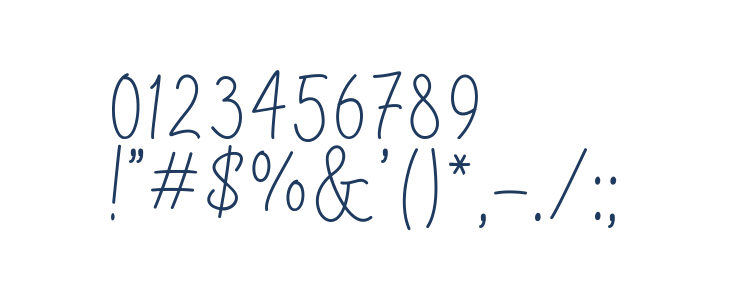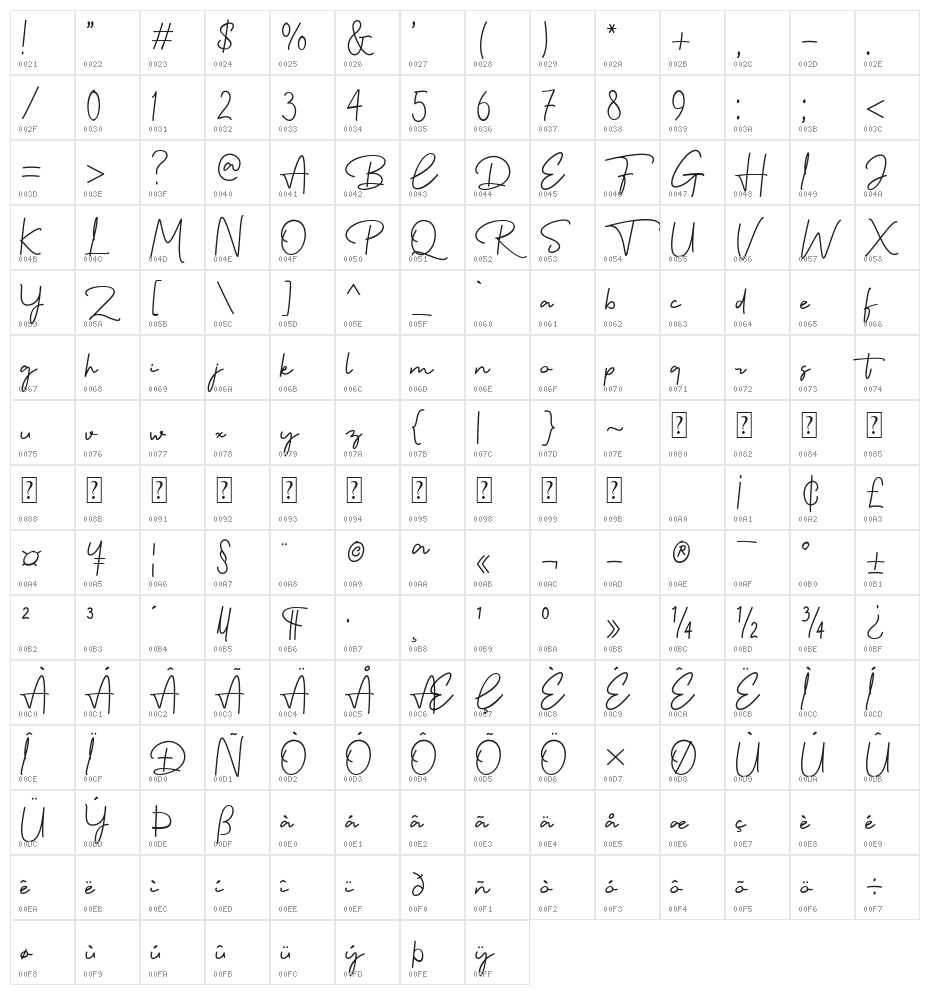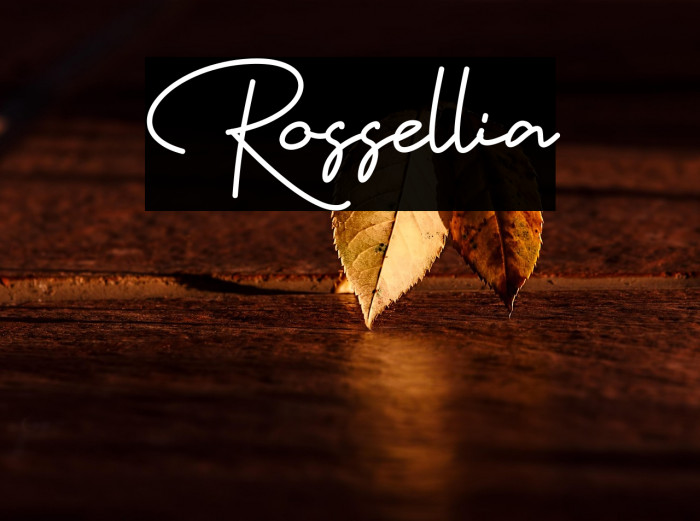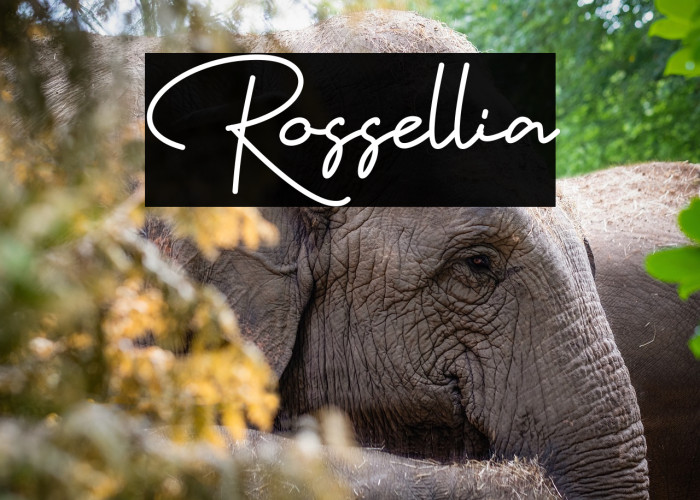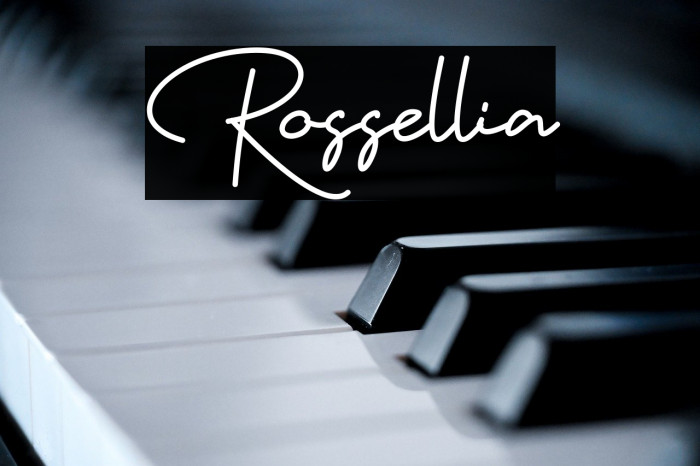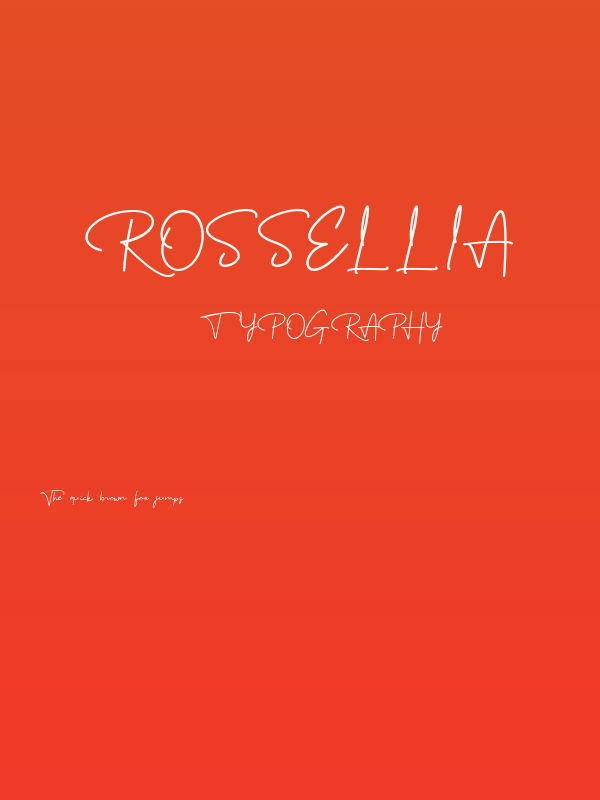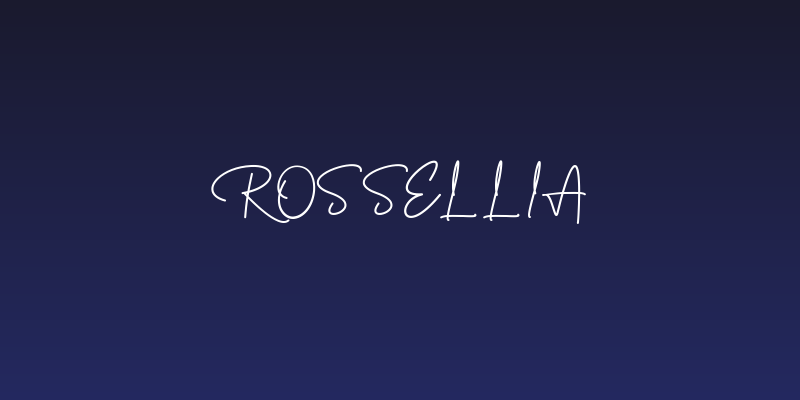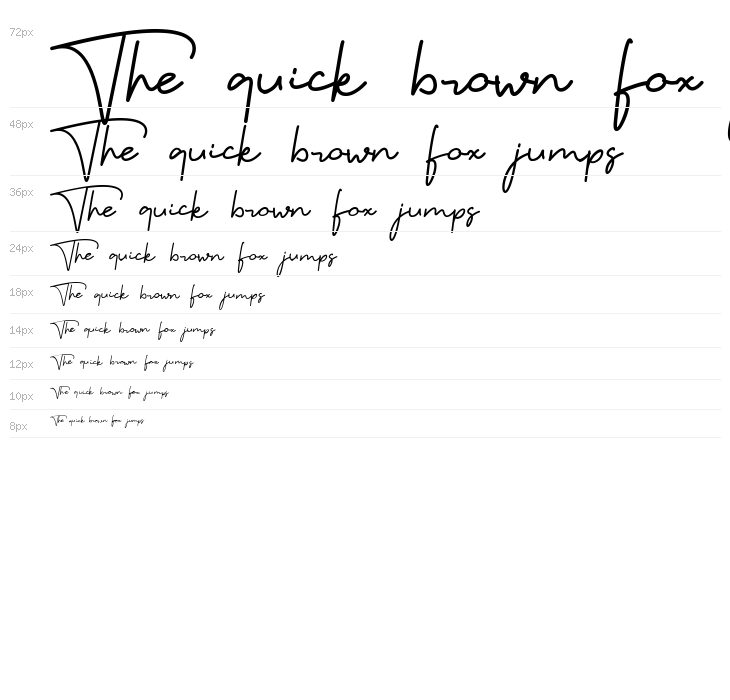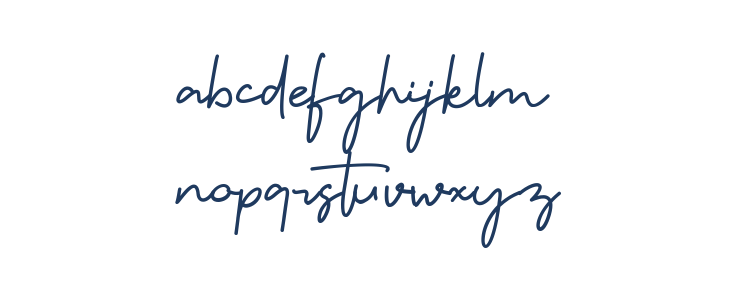
Rossellia Font
Rossellia Description
This font features a playful and casual handwritten style, characterized by its fluid and organic strokes. The uppercase letters are bold and slightly irregular, giving a dynamic and lively appearance. The lowercase letters maintain a consistent flow, with some letters extending below the baseline, adding to the font's whimsical charm. The numerals are clear and legible, matching the overall style with their rounded and slightly tilted forms. Special characters are creatively designed, maintaining the font's unique personality. This font is perfect for projects that require a personal touch, such as invitations, greeting cards, or branding materials.